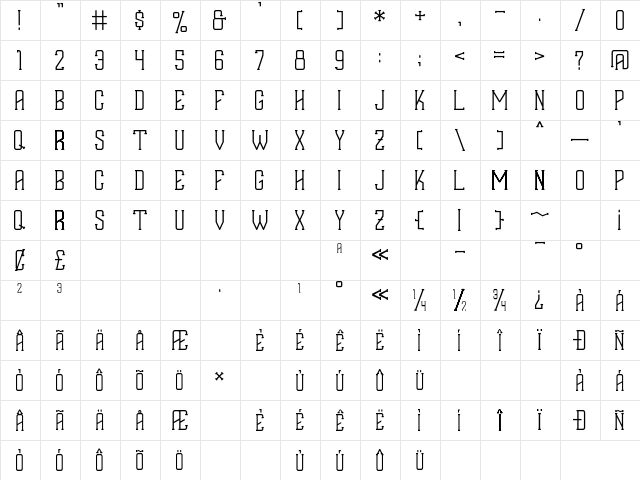
EVALIA Regular
| Foundry | HANIF ARIFINSYAH |
| Designer | hanif arifinsyah |
Design Context for EVALIA Typeface
EVALIA offers clean, dependable letterforms without strong stylistic allegiance, making it a practical choice for designers who need flexibility.